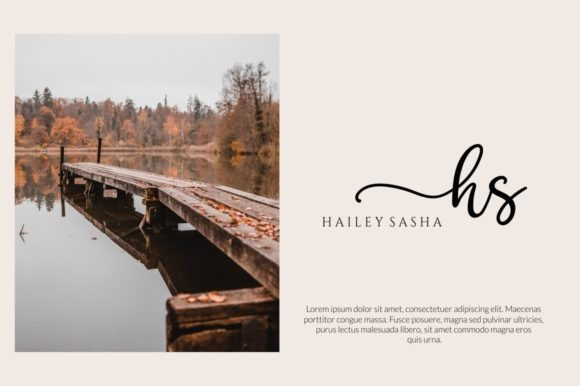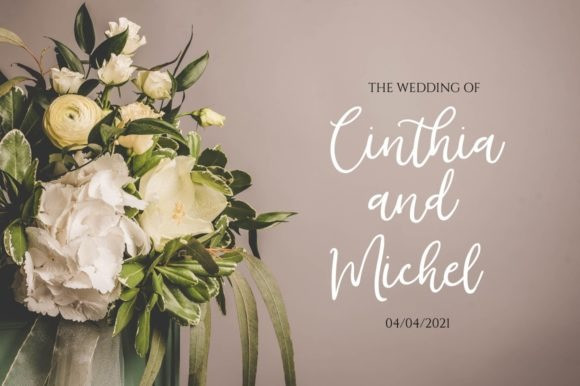
Janetta Silloam Handwritten Font
Janetta Silloam is a modern Calligraphy font with magical pressure. i hope this font is perfect for creating signature logos and watermarks for photography studio or wedding invitation, Lable, Logo, Magazine best for initial or branding logo signature.